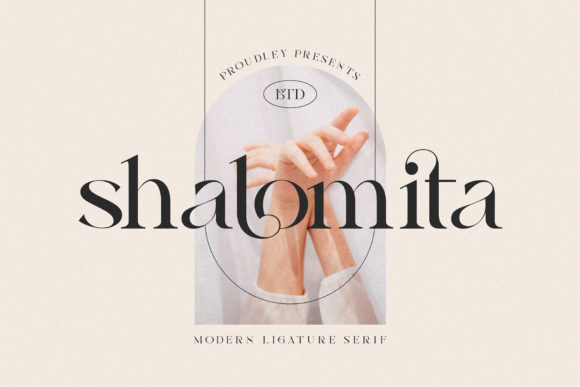
Journey into the world of elegance and sophistication with Shalomita Font, a modern ligature serif font that will transform your designs into captivating masterpieces. Created by Burntilldead, this font is the perfect choice for those seeking a touch of grace and refinement in their creative projects.
With its delicate curves and flowing lines, Shalomita Font exudes a timeless beauty that will elevate your designs to new heights. Whether you're crafting a stunning wedding invitation, designing a captivating logo, or creating eye-catching social media ads, this font will add a touch of magic to your work.
Immerse yourself in the endless possibilities that Shalomita Font offers. Its versatility knows no bounds, allowing you to effortlessly create designs that speak to your heart and captivate your audience. From elegant branding materials to sophisticated website designs, this font will transform your creative vision into a reality.
Unleash your creativity and let Shalomita Font guide you towards design excellence. Its intuitive nature makes it a joy to use, ensuring that your projects flow effortlessly from concept to completion. Experience the sheer delight of watching your designs come to life, imbued with the charm and allure that only Shalomita Font can provide.
Embrace the transformative power of Shalomita Font and embark on a creative journey like never before. Allow your imagination to soar as you witness the beauty and elegance that unfold before your eyes. With this font as your creative companion, you'll discover a whole new world of design possibilities, leaving your audience spellbound.
Don't settle for ordinary fonts that fail to inspire. Choose Shalomita Font and elevate your designs to the realm of the extraordinary. Let your creativity flourish as you explore the endless possibilities that await you. Experience the magic of Shalomita Font today and unlock a world of design brilliance.